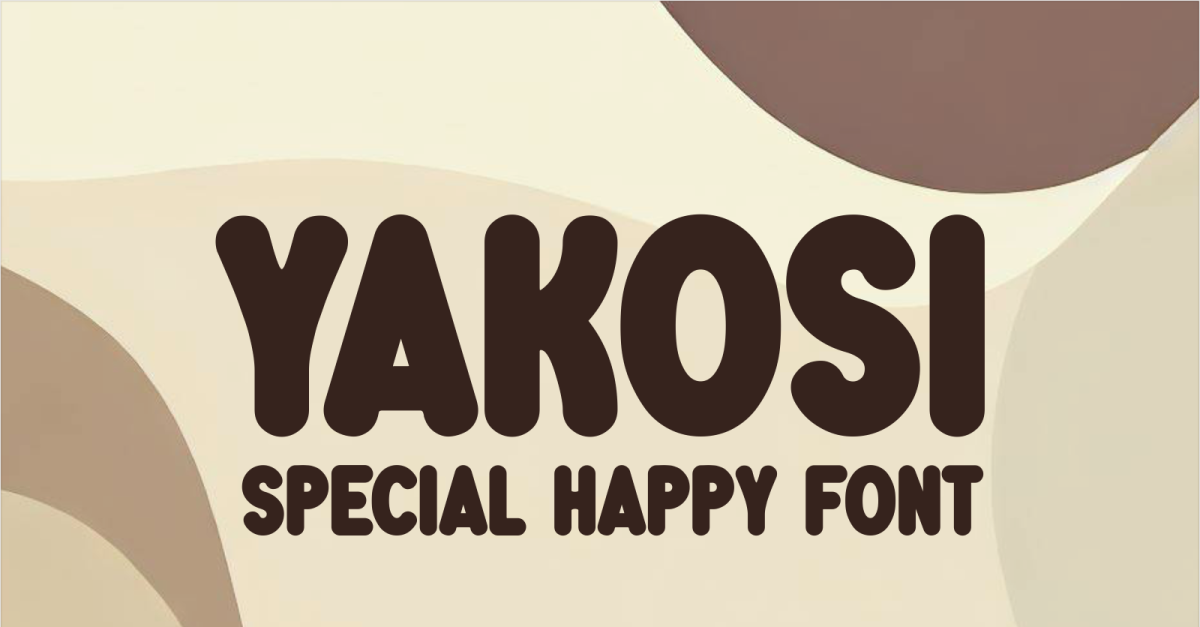
Yakosi Playful and Fun Kids Font
This font is lovingly crafted with children in mind — playful, warm, and full of heart. Inspired by the joy and innocence of childhood, it’s perfect for storybooks, educational materials, kids’ branding, and more.